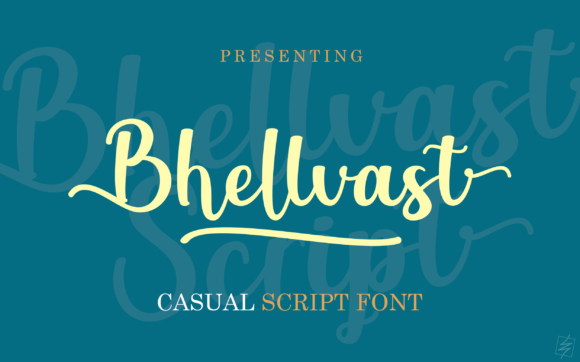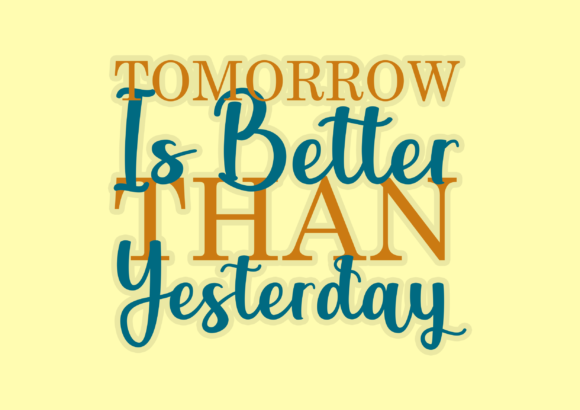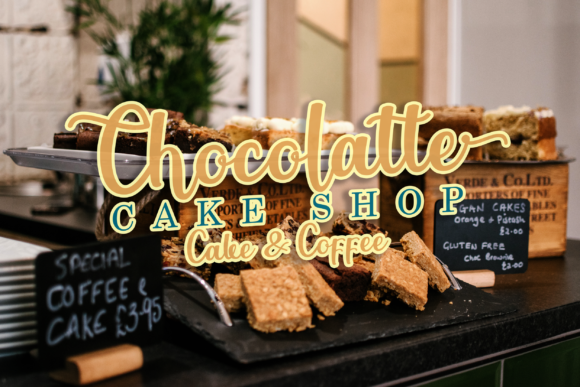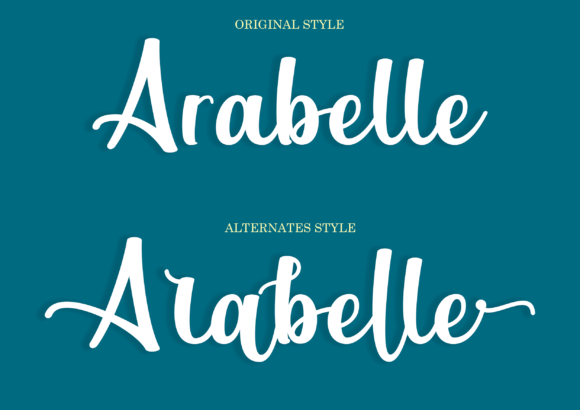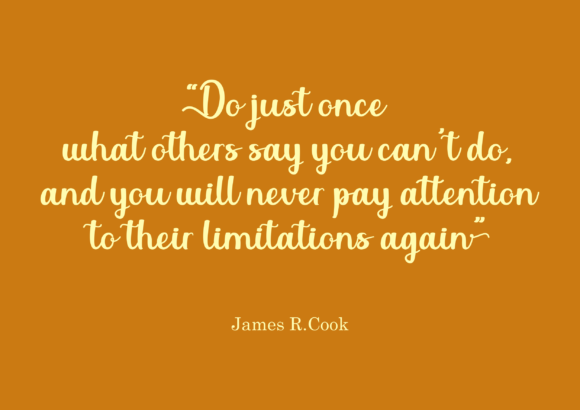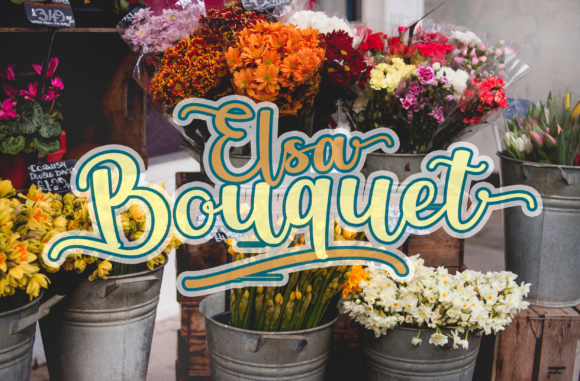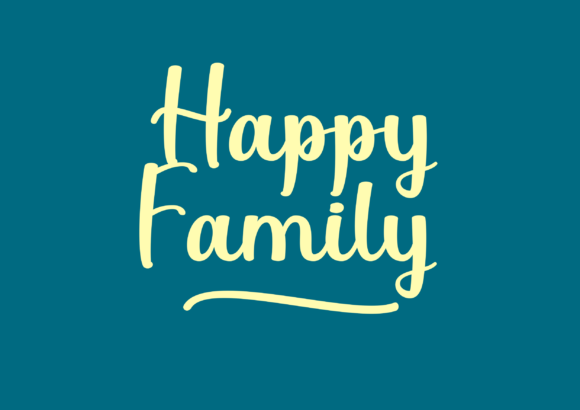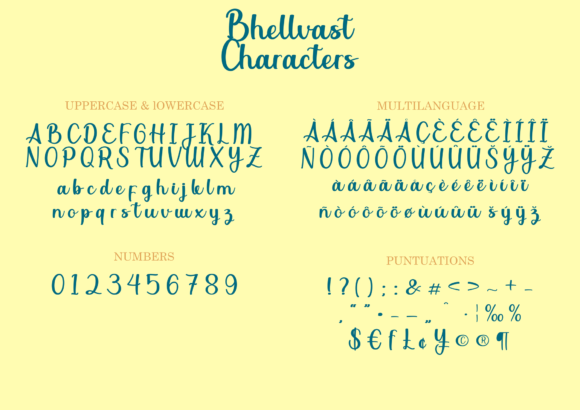
Bhellvast Font
About Bhellvast Font
Bhellvast is a magical handwritten font carefully created with a touch of elegance. This is a beautiful combination of timeless elegance and authentic calligraphy. Use this gorgeous and unique typeface to bring any DIY project to life!